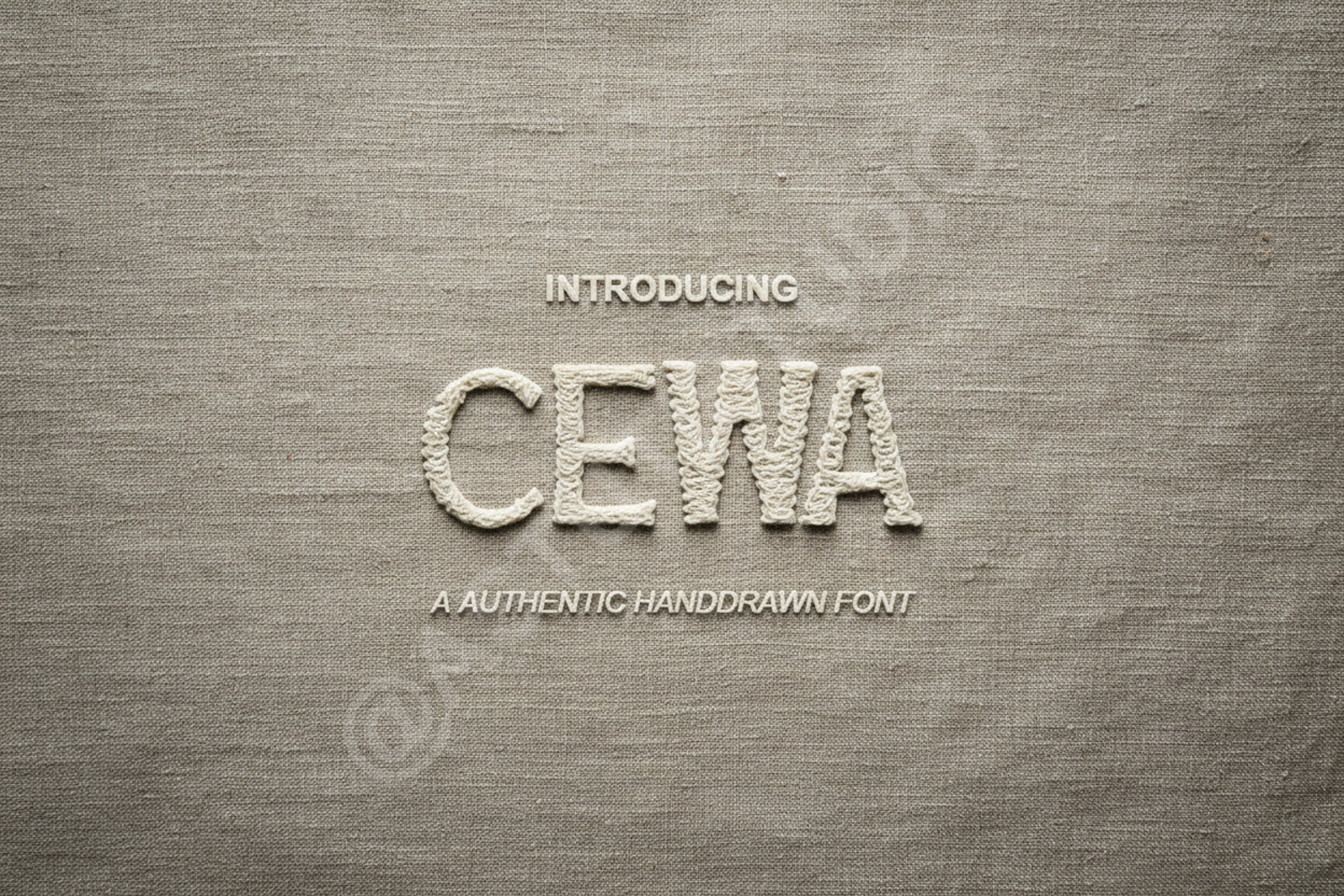
Cewa - Modern Minimalist Sans Serif Typeface
Cewa
Introducing Cewa, a premium sans-serif font meticulously crafted for designers who demand clarity and sophistication. Cewa combines modern geometric precision with a clean, minimalist aesthetic, making it the perfect choice for high-end professional projects. Whether you are building a brand from the ground up or looking for a reliable display face, Cewa delivers a timeless look that resonates with elegance and authority.
- Luxury Branding: Create a memorable logo and cohesive brand identity.
- Wedding Stationery: Perfect for modern, chic invitations and event programs.
- Editorial Design: Ideal for magazine headers, body text, and sleek layout accents.
- Digital Marketing: Enhance your social media graphics and website banners.
- Corporate Design: Professional enough for business cards, annual reports, and high-stakes presentations.